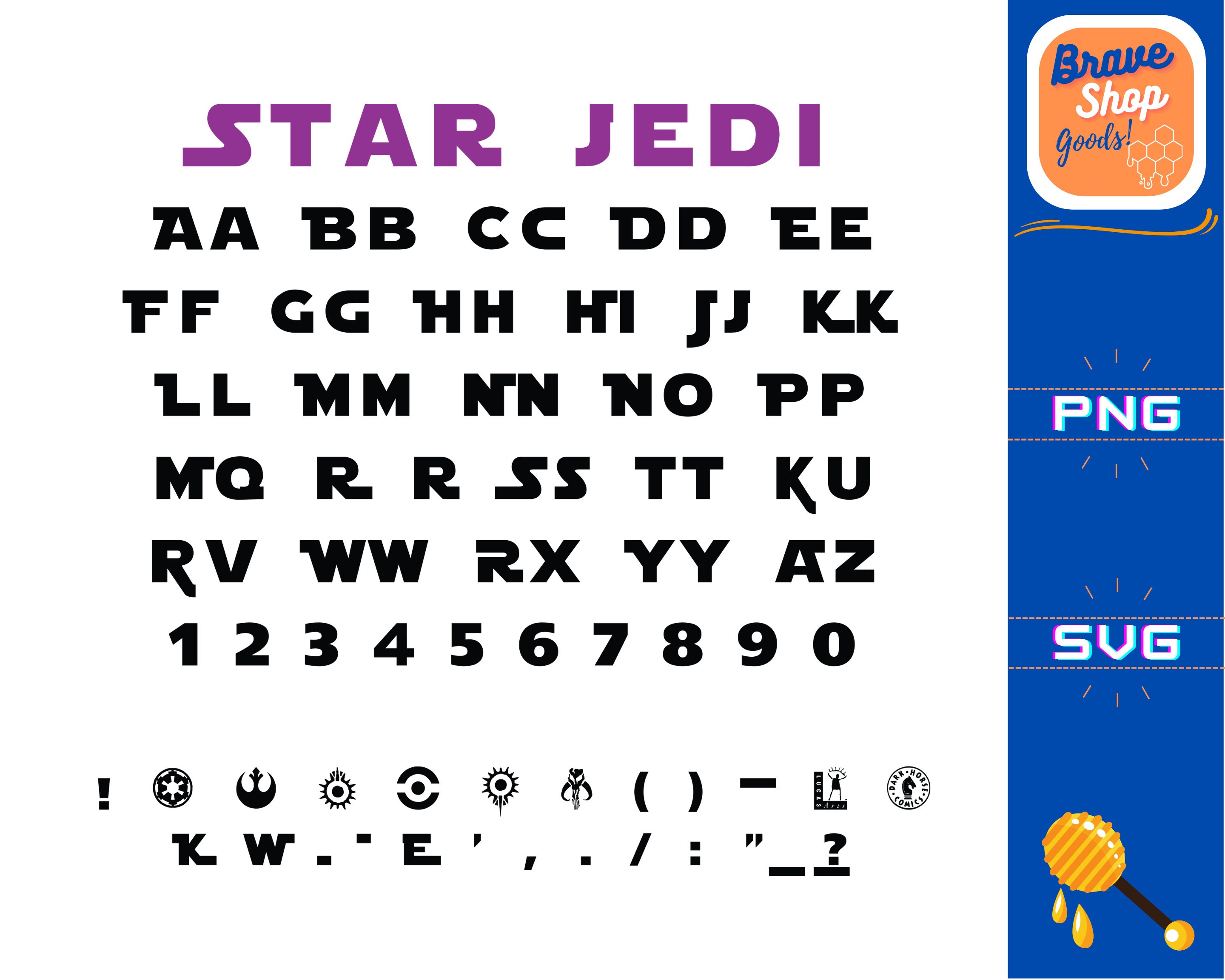
Star Jedi Font Copy And Paste . Released in 1998 by boba fonts and licensed for personal and commercial. Web discover and customize the font star jedi and other similar fonts, ready to share in facebook and twitter.
Released in 1998 by boba fonts and licensed for personal and commercial. The free available version that can be. Web discover and customize the font star jedi and other similar fonts, ready to share in facebook and twitter.
Web star jedi à by boba fonts. Web discover and customize the font star jedi and other similar fonts, ready to share in facebook and twitter. Web star jedi which is in the regular category edit and use as you wish. The star jedi font was.
Star Jedi Font Copy And Paste - Web the star wars logo lettering is very similar to a font named star jedi created by boba fonts and you can download it for free here. Released in 1998 by boba fonts and licensed for personal and commercial. Web discover and customize the font star jedi and other similar fonts, ready to share in facebook and twitter. Web the.
Star Jedi Font Copy And Paste - Web star jedi à by boba fonts. Web the star wars logo lettering is very similar to a font named star jedi created by boba fonts and you can download it for free here. Web star jedi which is in the regular category edit and use as you wish. Web discover and customize the font star jedi and other similar.
Star Jedi Font Copy And Paste - Web star jedi which is in the regular category edit and use as you wish. Web discover and customize the font star jedi and other similar fonts, ready to share in facebook and twitter. Released in 1998 by boba fonts and. This font prepared by can be used as 1998. Released in 1998 by boba fonts and licensed for personal.
Star Jedi Font Copy And Paste - Web star jedi which is in the regular category edit and use as you wish. Web free download of star jedi font family with 3 styles. Web the star wars logo lettering is very similar to a font named star jedi created by boba fonts and you can download it for free here. The free available version that can be..
Star Jedi Font Copy And Paste - The star jedi font was. Web star jedi à by boba fonts. Web the star wars logo lettering is very similar to a font named star jedi created by boba fonts and you can download it for free here. Web free download of star jedi font family with 3 styles. This font prepared by can be used as 1998.
Star Jedi Font Copy And Paste - Web the star jedi font is an iconic font based on the lettering used in the star wars logo. The star jedi font was. Web star jedi à by boba fonts. Released in 1998 by boba fonts and. The free available version that can be.
Star Jedi Font Copy And Paste - Web free download of star jedi logo font family with 3 styles. Web star jedi à by boba fonts. The free available version that can be. Released in 1998 by boba fonts and. Web the star wars logo lettering is very similar to a font named star jedi created by boba fonts and you can download it for free here.
Star Jedi Font Copy And Paste - Released in 1998 by boba fonts and licensed for personal and commercial. The free available version that can be. Web star jedi which is in the regular category edit and use as you wish. Web the star jedi font is an iconic font based on the lettering used in the star wars logo. Web star jedi à by boba fonts.
Star Jedi Font Copy And Paste - Web star jedi which is in the regular category edit and use as you wish. The free available version that can be. Web star jedi à by boba fonts. Web free download of star jedi font family with 3 styles. Web discover and customize the font star jedi and other similar fonts, ready to share in facebook and twitter.
Star Jedi Font Copy And Paste - Web the star jedi font is an iconic font based on the lettering used in the star wars logo. Web the star wars logo lettering is very similar to a font named star jedi created by boba fonts and you can download it for free here. The free available version that can be. Web star jedi à by boba fonts..
Star Jedi Font Copy And Paste - Released in 1998 by boba fonts and licensed for personal and commercial. Web discover and customize the font star jedi and other similar fonts, ready to share in facebook and twitter. Web the star jedi font is an iconic font based on the lettering used in the star wars logo. Web free download of star jedi font family with 3.
Star Jedi Font Copy And Paste - Web free download of star jedi logo font family with 3 styles. Web star jedi which is in the regular category edit and use as you wish. Web discover and customize the font star jedi and other similar fonts, ready to share in facebook and twitter. This font prepared by can be used as 1998. Web the star jedi font.
Star Jedi Font Copy And Paste - Web star jedi which is in the regular category edit and use as you wish. The star jedi font was. Released in 1998 by boba fonts and licensed for personal and commercial. The free available version that can be. Web free download of star jedi logo font family with 3 styles.